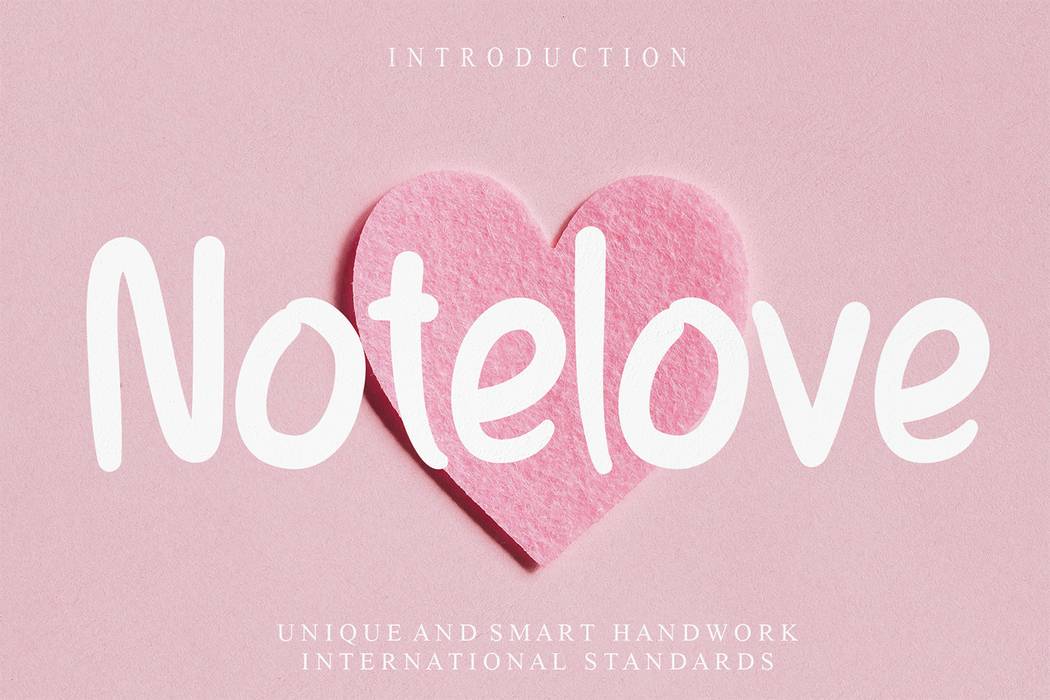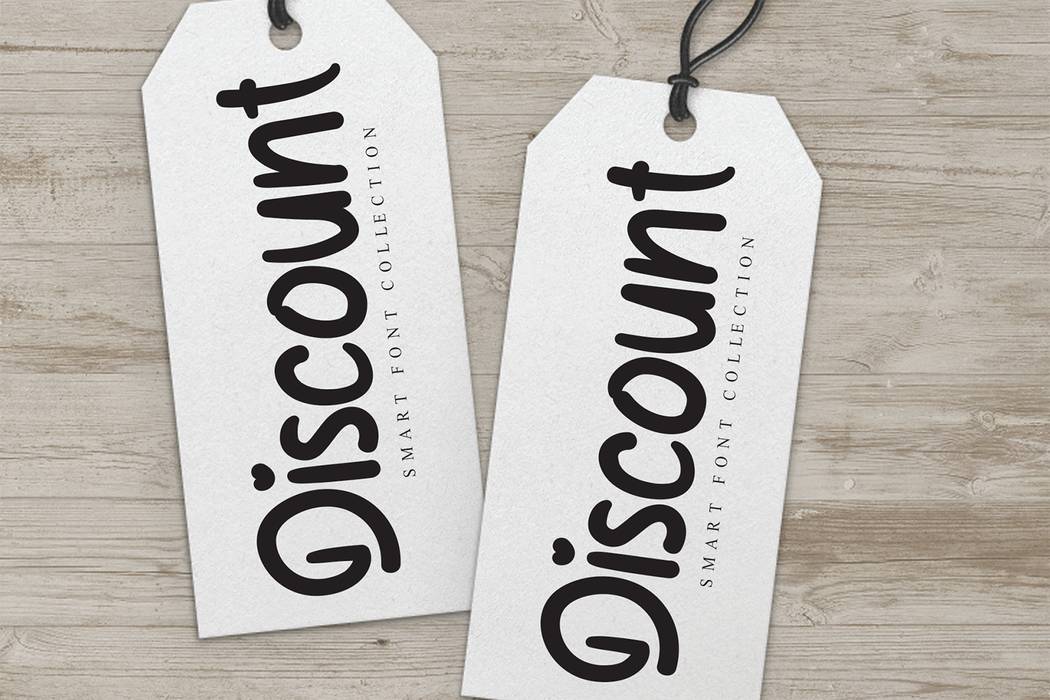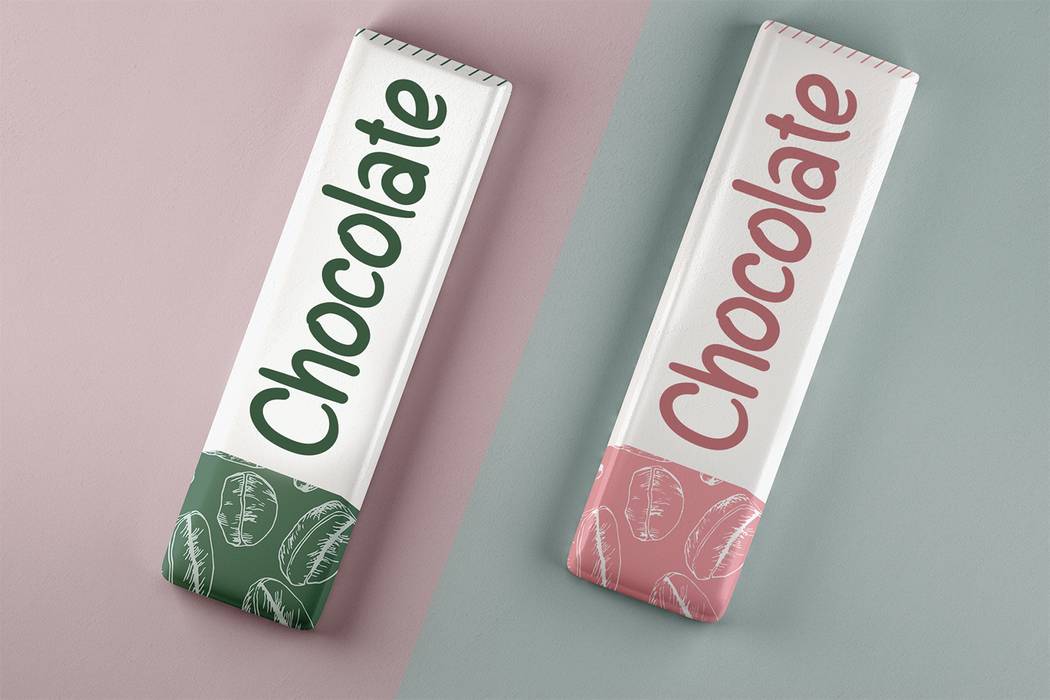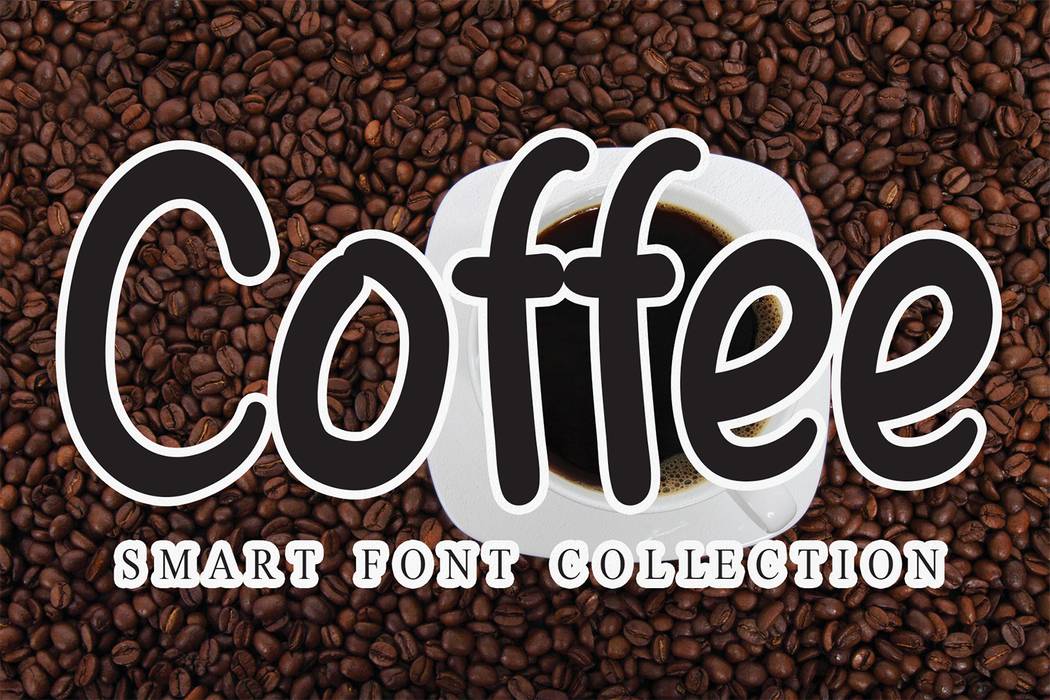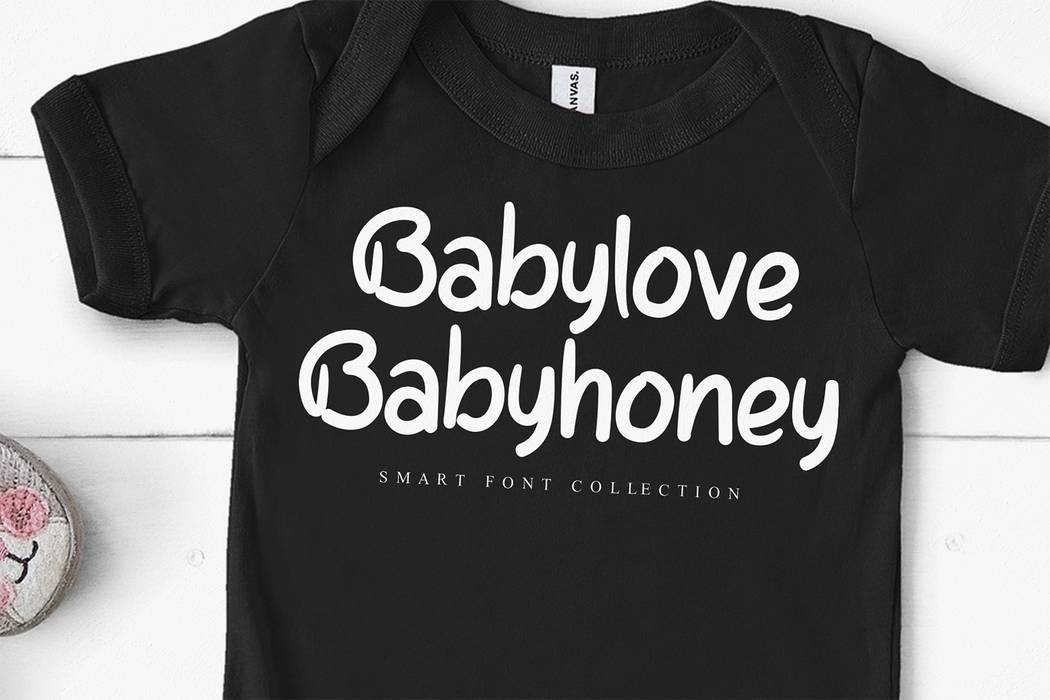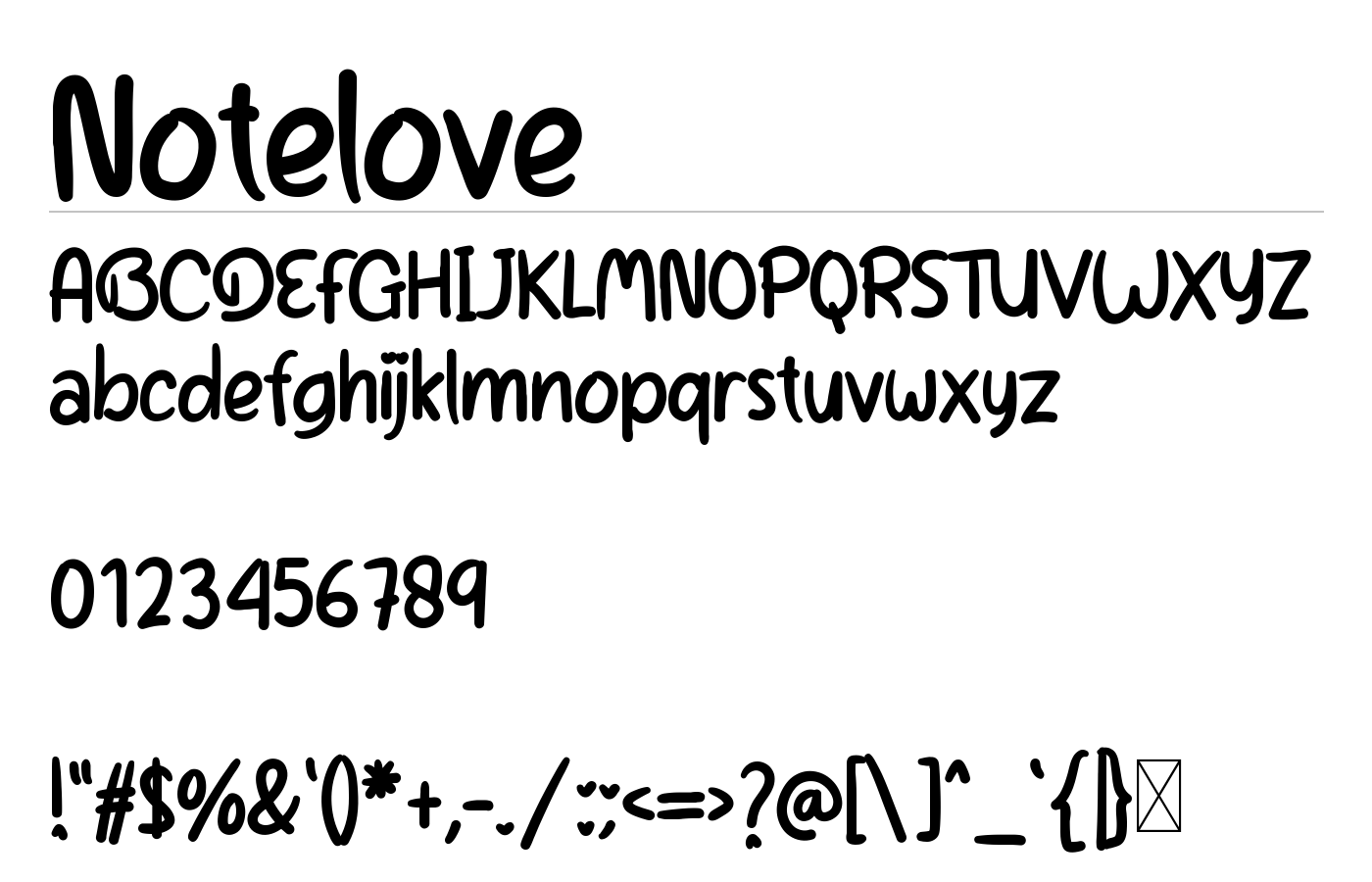
Notelove is a playful, casual sans serif font with a hand-drawn feel, featuring rounded strokes and slightly irregular shapes that give it a friendly and approachable vibe. Its moderate weight and clear letterforms make it ideal for informal designs like children’s books, greeting cards, and fun branding that want to convey warmth and creativity. This font works well where a lively, personal touch is needed without compromising readability.
Notelove Font
About Notelove Font